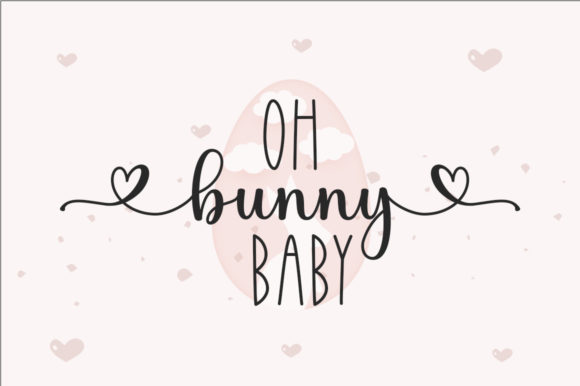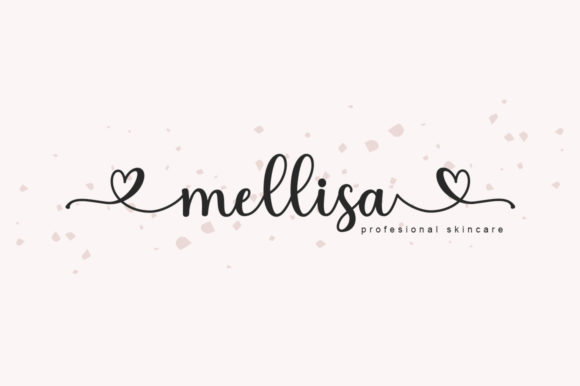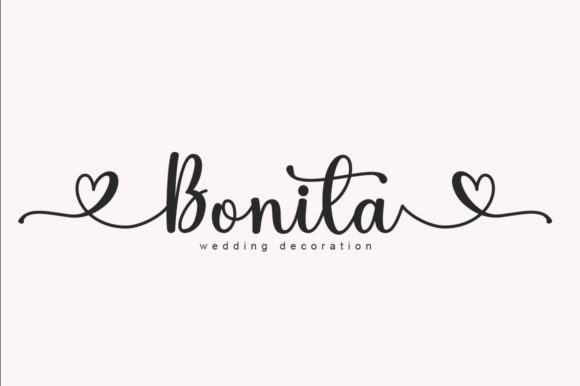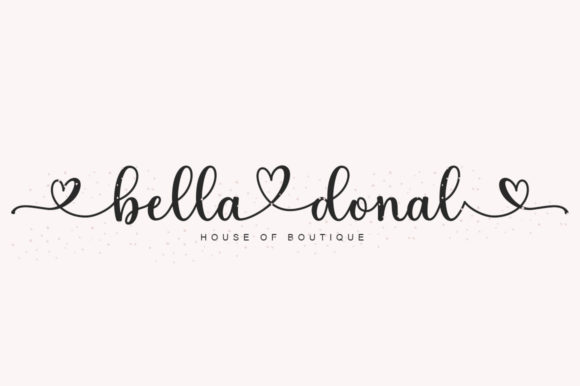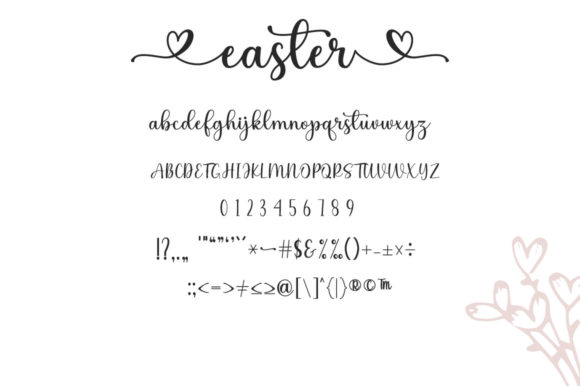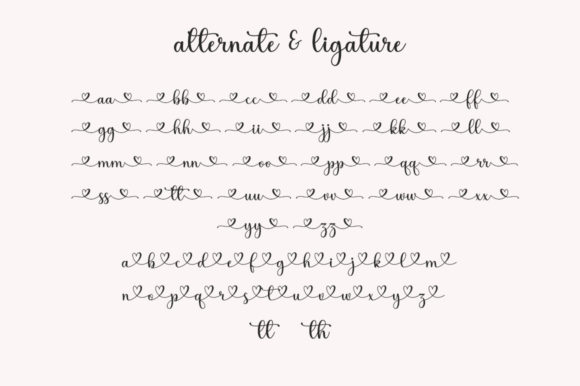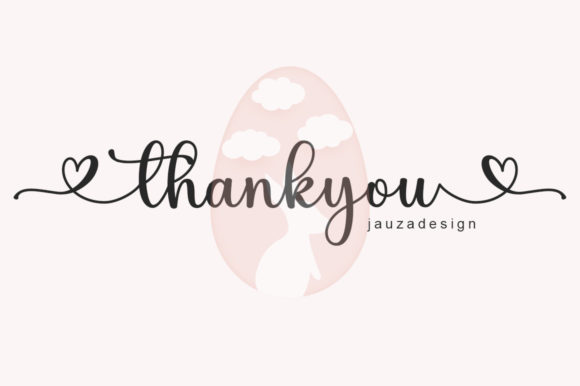
Easter Time Font
About Easter Time Font
Easter Time is a charming and delicate script font that brings a touch of elegance to your designs. With its thin lettering and graceful strokes, this font exudes a sense of sophistication that is perfect for a variety of creative projects.
The font’s PUA encoding allows you to effortlessly access its wide range of glyphs and ligatures. This means that you have the freedom to experiment and create unique typographic compositions that perfectly suit your vision. Whether you’re designing invitations, logos, branding materials, or any other project, Easter Time’s versatile character set empowers you to craft truly captivating visuals.
Adding Easter Time to your designs is a confident choice that is bound to yield stunning results. Its delicate nature and intricate details make it ideal for adding a personalized and refined touch to your favorite creations. Whether you’re aiming for a romantic and whimsical feel or a sophisticated and timeless aesthetic, Easter Time has the flexibility to adapt to your design intentions.
As you explore the potential of Easter Time in your creative endeavors, you’ll undoubtedly be amazed by the exquisite outcome it generates. The font’s ability to evoke emotions and convey a sense of beauty makes it a valuable asset for designers seeking to make a lasting impact with their work.